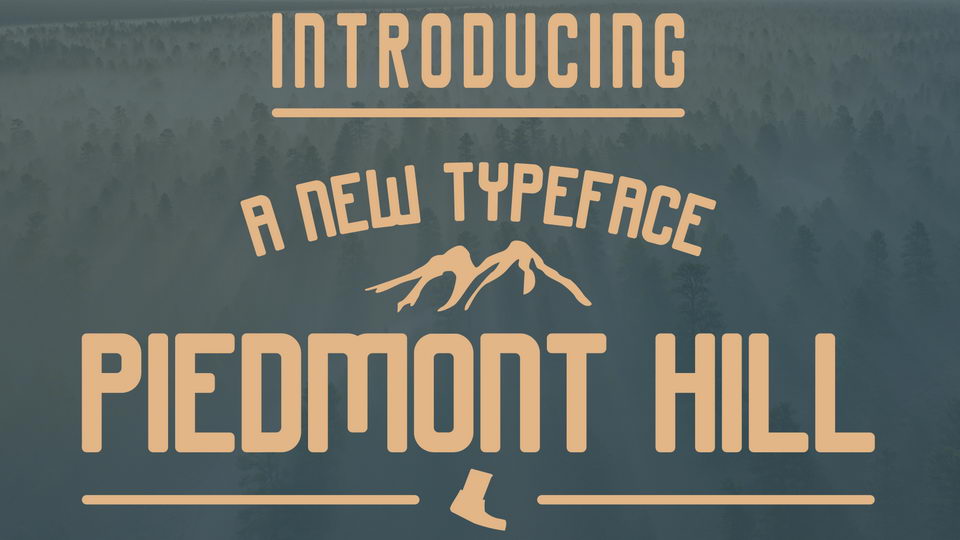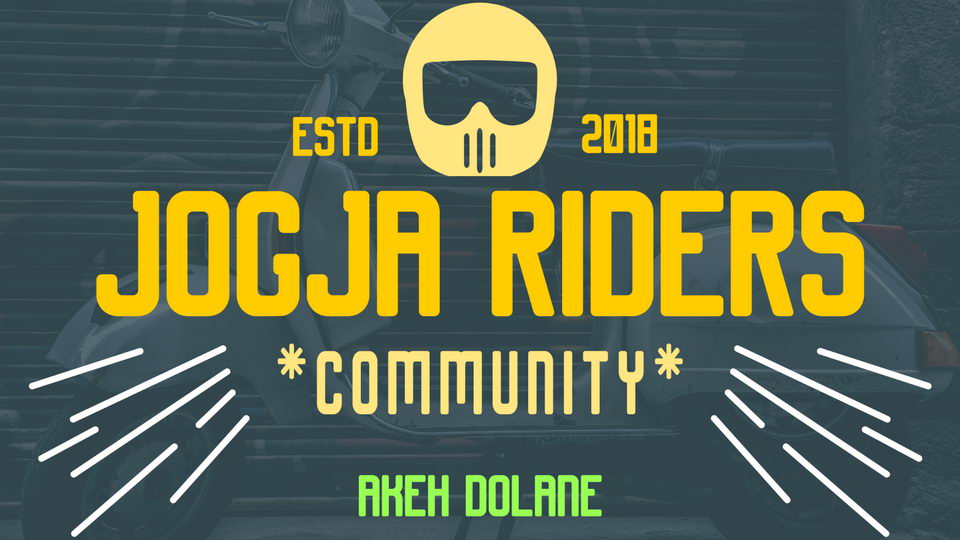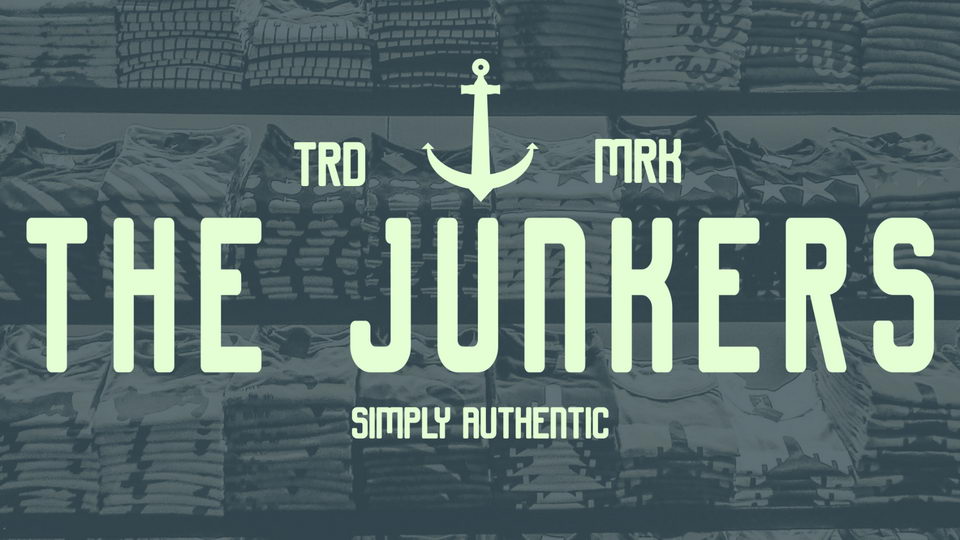
Piedmont Hill is a handmade vintage style display font for multiply applied like logo, badges, title, banner, ads and else.
Piedmond Hill font has a great readability and will give your design a striking look.